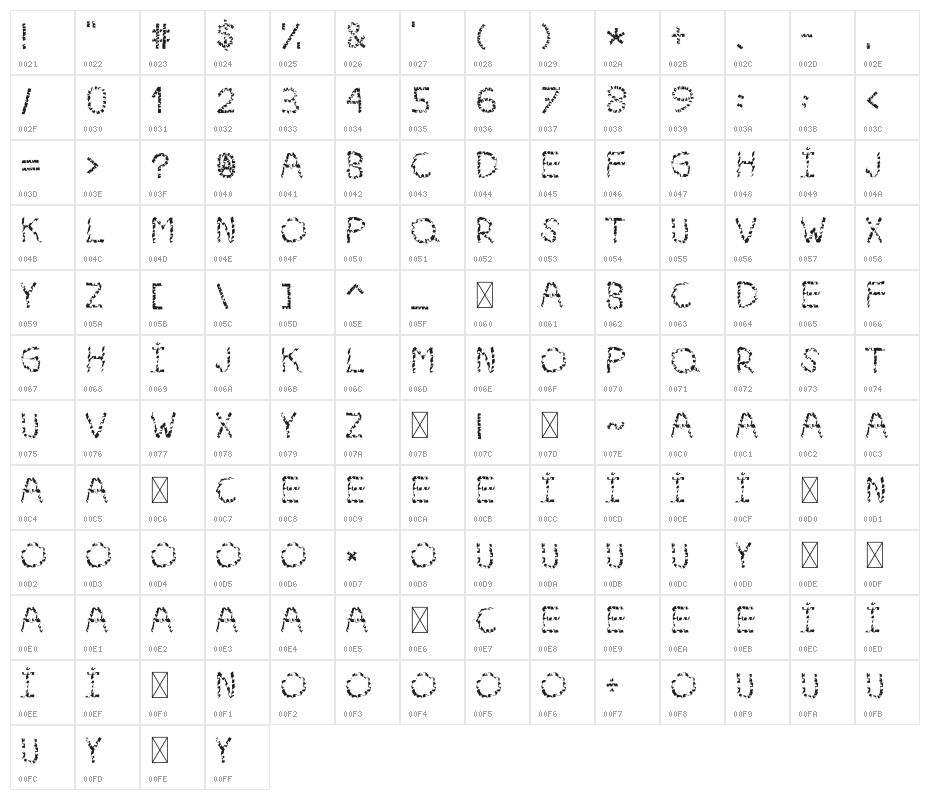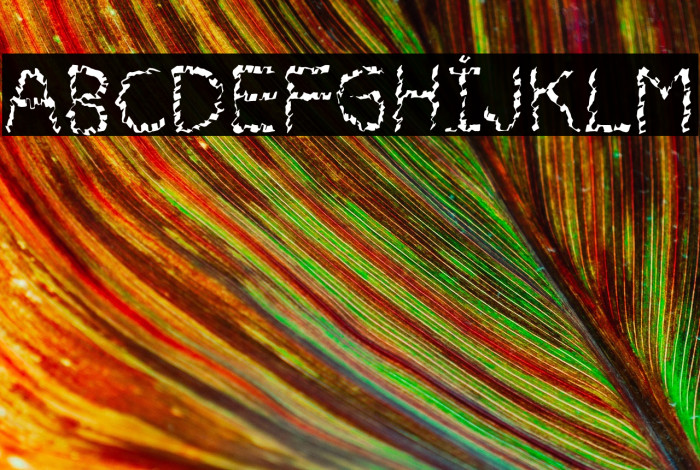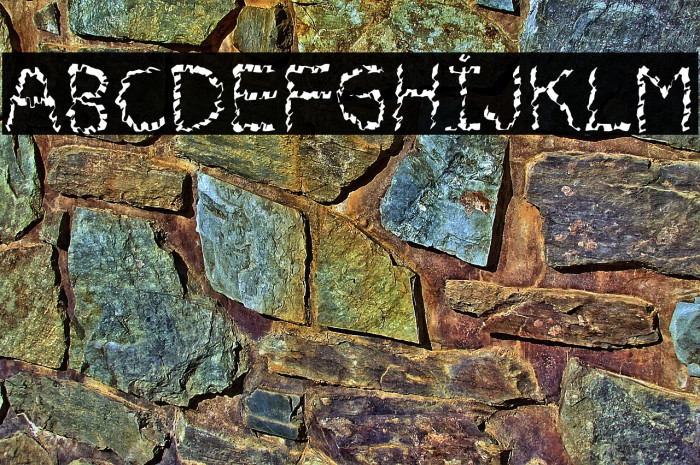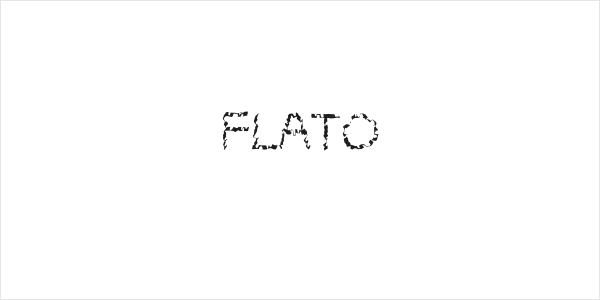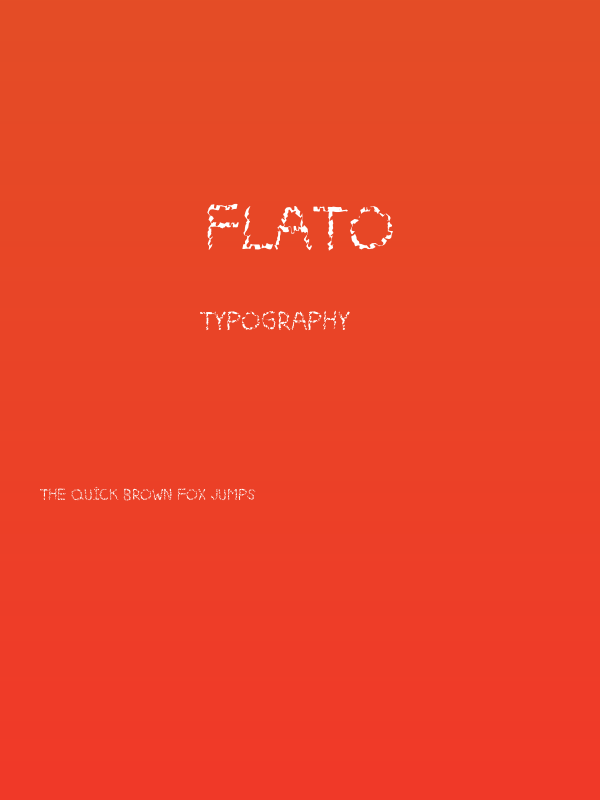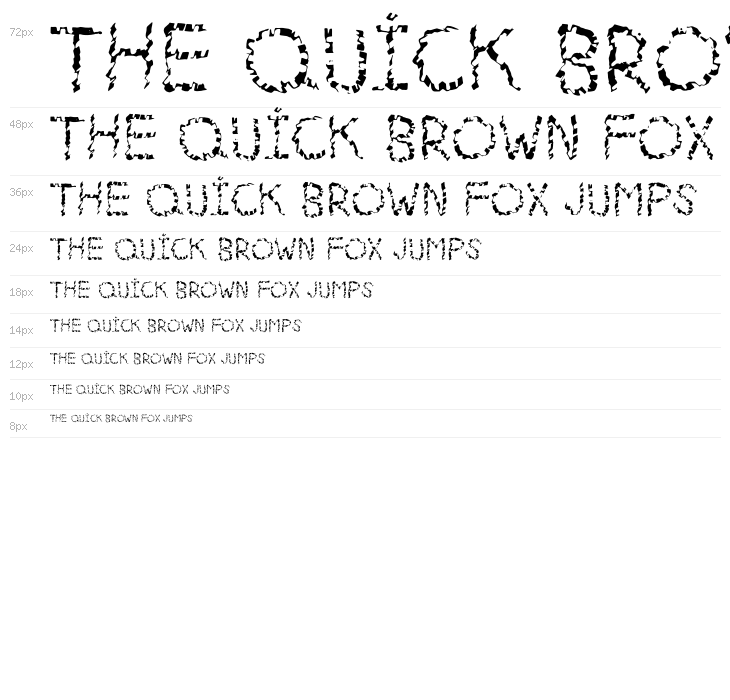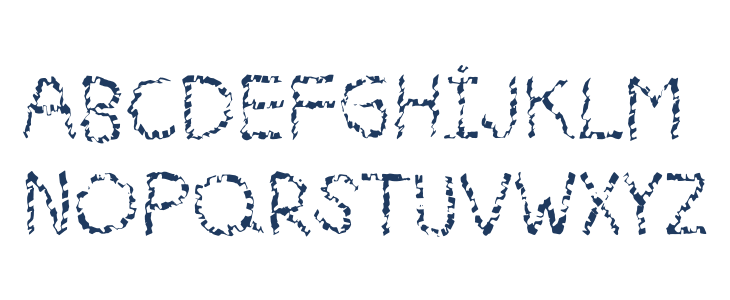
Flato Font
Flato Description
This font features a unique, jagged design that resembles torn paper or rough edges, giving it a dynamic and textured appearance. The characters are bold and eye-catching, with irregular outlines that create a sense of movement and energy. This style is particularly effective for projects that require a standout, artistic look. The uppercase and lowercase letters maintain a consistent style, while the numbers and special characters add to the overall cohesive design. The font's distinctive appearance makes it suitable for creative and unconventional applications.
| Proposed Projects | Posters, album covers, artistic branding, event flyers, and creative digital media. |